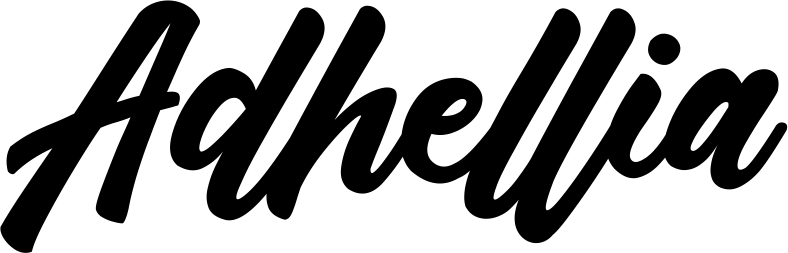
Adhellia Font
Are you looking for a new playful font to add a natural sense to your design project? Stay with us to help you to make a successful choice. Here is the Adhellia script font that enables you to enhance the quality of your writing style.
This casual font is inspired by a hand drawing that can create a friendly and cozy atmosphere. You can use this font in any flyers, greeting cards, invitations, titles, quotes, and more. Download and enjoy!